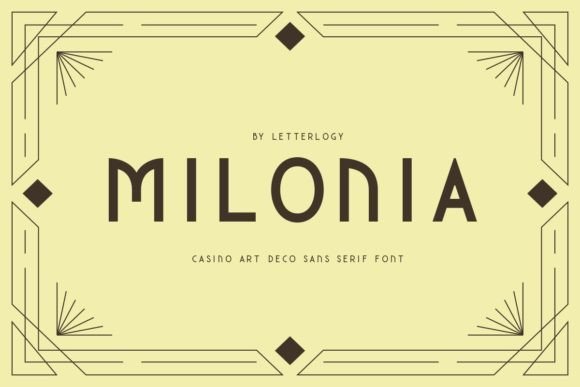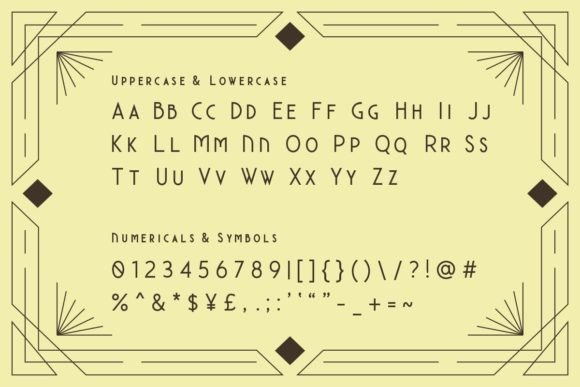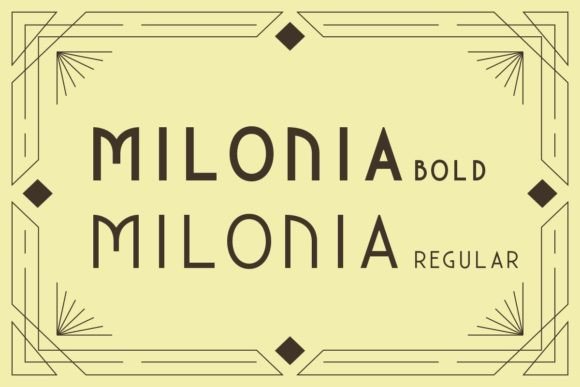
Milonia Font
Milonia is an Art Deco sans serif font inspired by the casino era and style. Its sleek and retro aesthetics make this font the perfect choice for a great number of creative projects. Add it to your fonts library, and it will become an instant favorite!